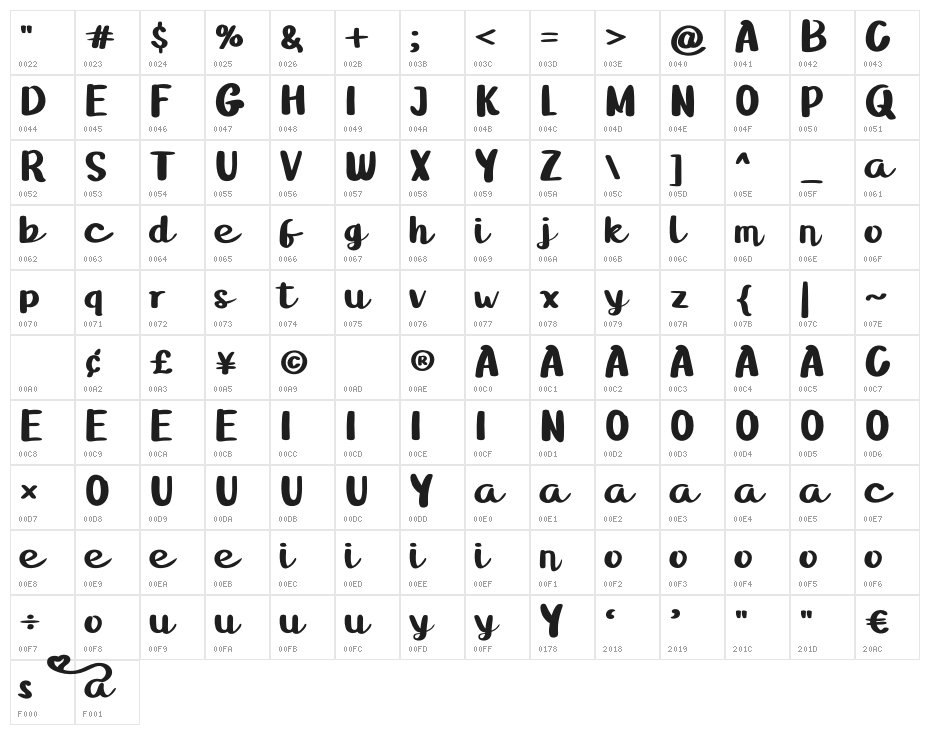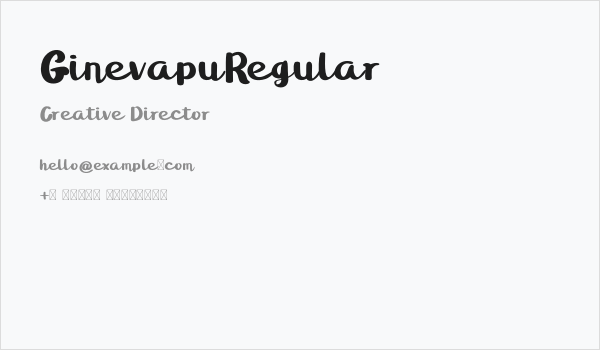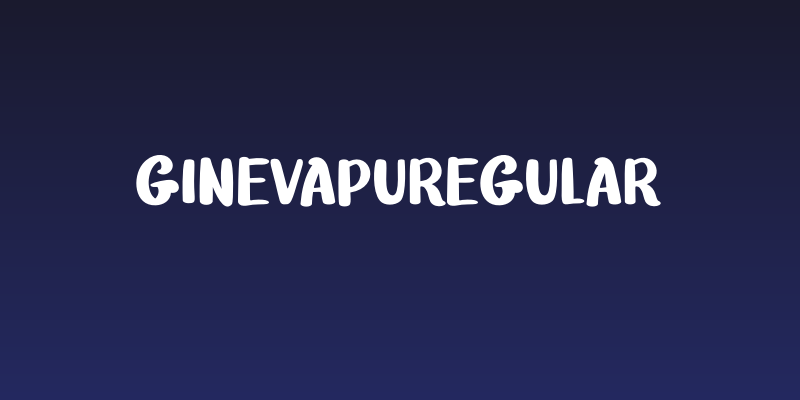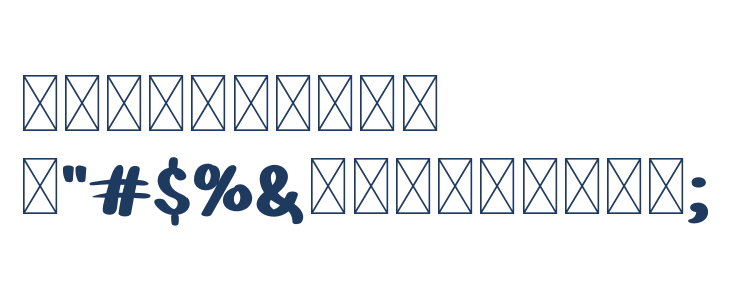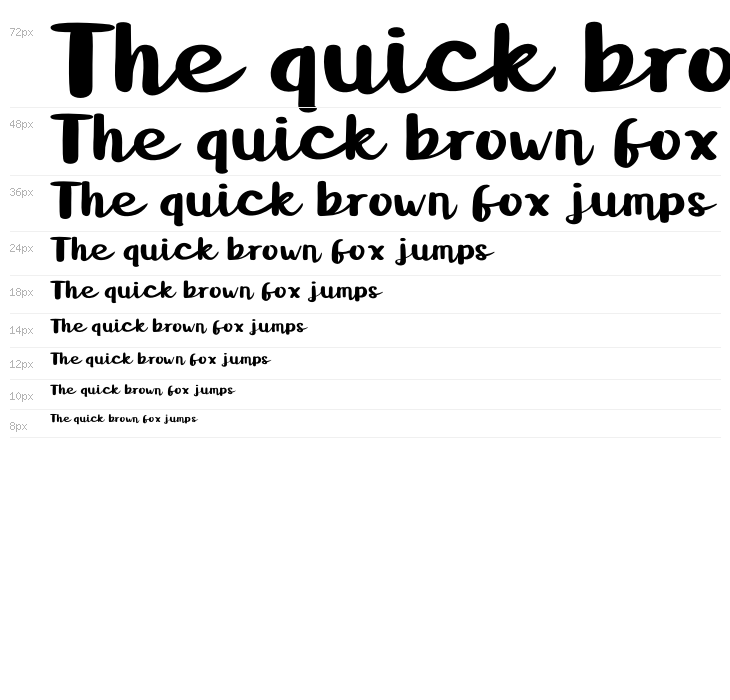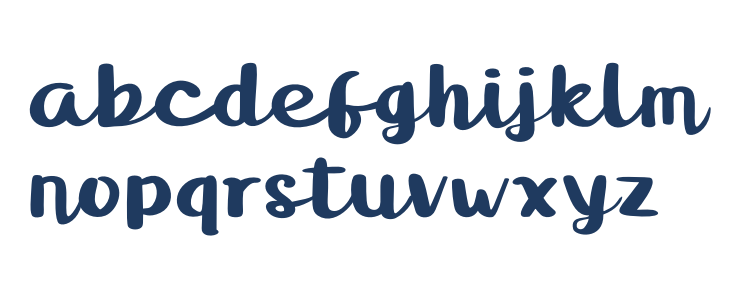
GinevapuRegular Font
GinevapuRegular Description
This font features a playful and bold style with a handwritten touch. The uppercase letters are thick and rounded, giving a friendly and approachable feel. The lowercase letters maintain a similar thickness but introduce a slight cursive flair, adding a sense of movement and dynamism. The numbers and special characters are consistent with the overall style, ensuring a cohesive look across all text elements. This font's unique character is evident in its ability to balance boldness with a casual, handwritten aesthetic, making it versatile for various design applications.
| Proposed Projects | Ideal for children's books, playful branding, greeting cards, and casual invitations. |